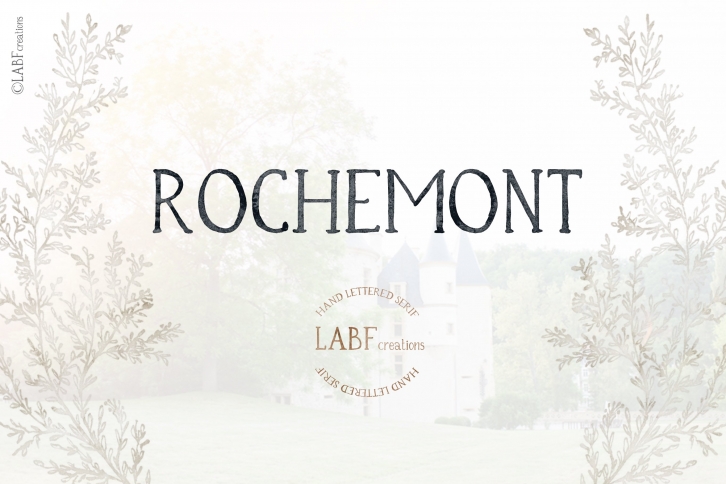
Classic and rustic hand lettered font Rochemont.
Hand drawn with l watercolors. Inspired with old french castle style.
Antique, chic and Little bit rustic. Classic elegant and timeless.
Will perfectly works in couple with modern calligraphy fonts.